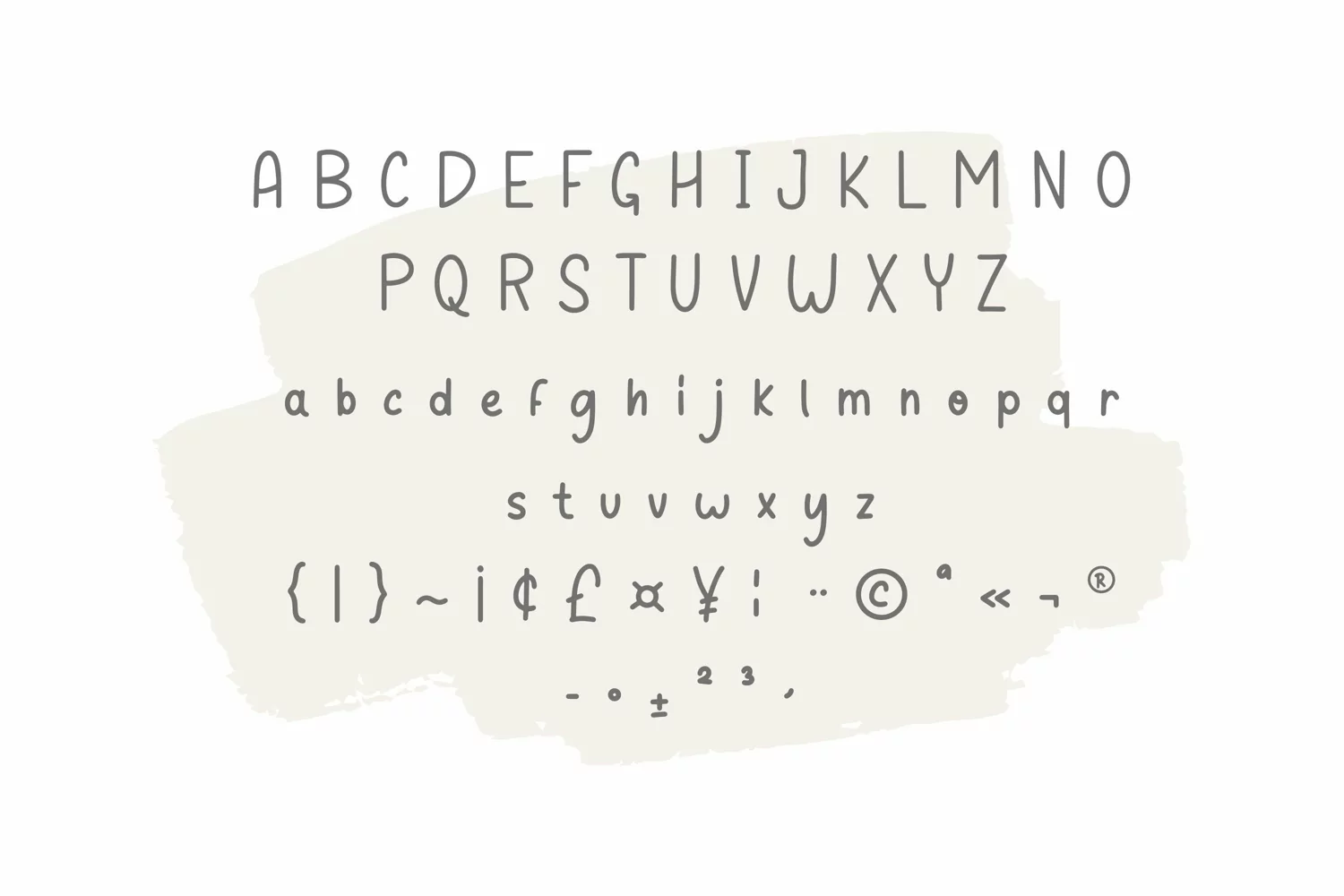
Elysian is a cute and simple-lettered handwritten font perfect for all chalkboard quotes or teaching material! Its authentic look will add a realistic feel to your designs.
Elysian